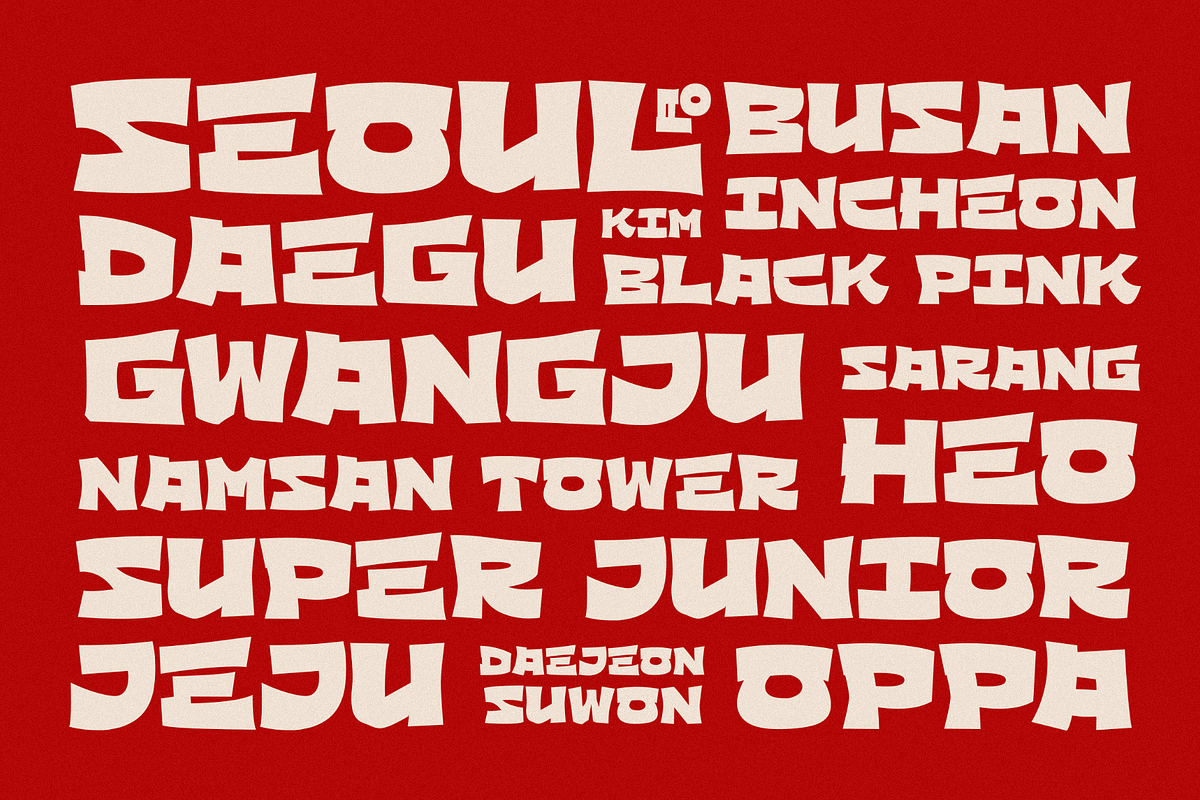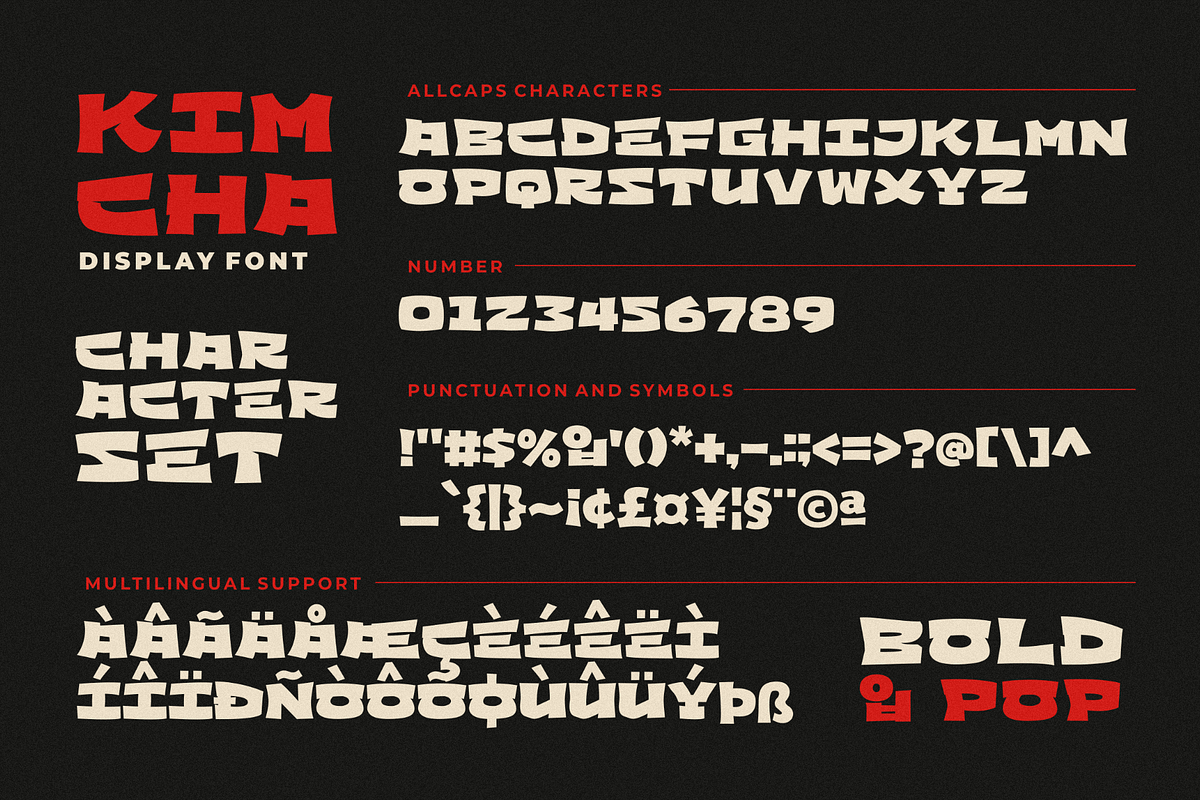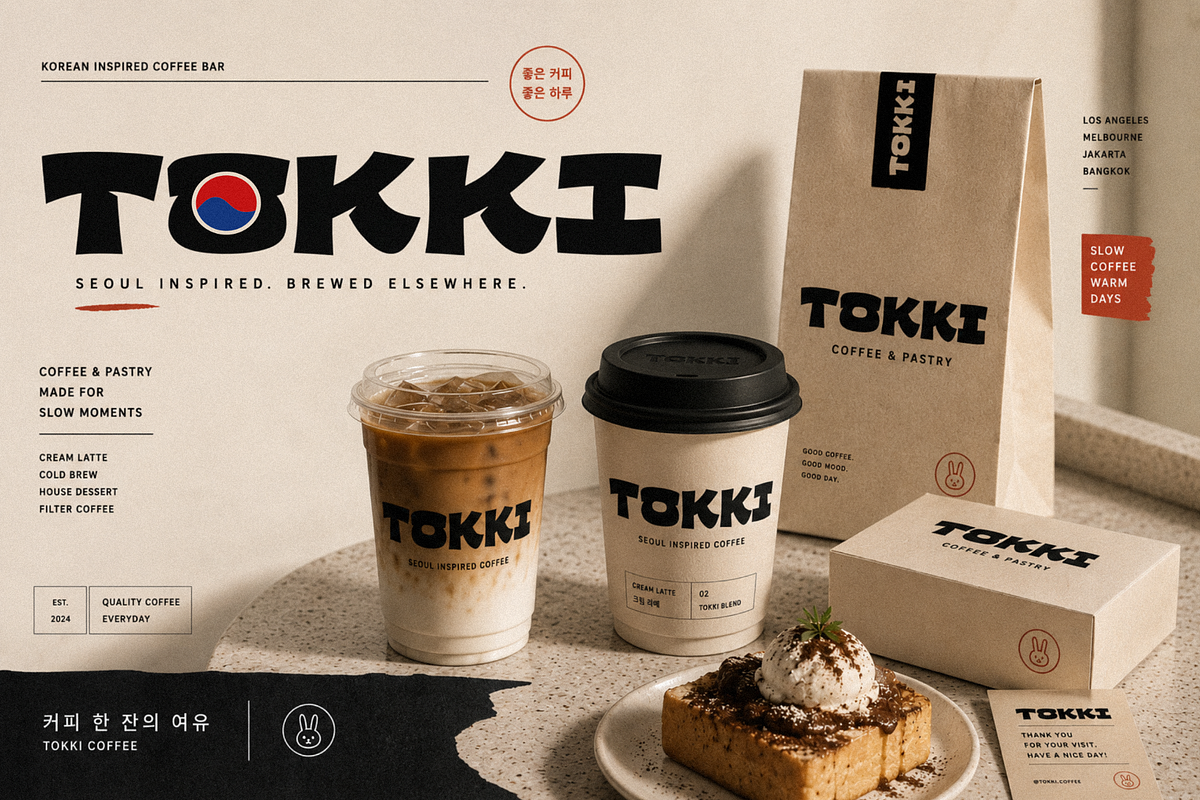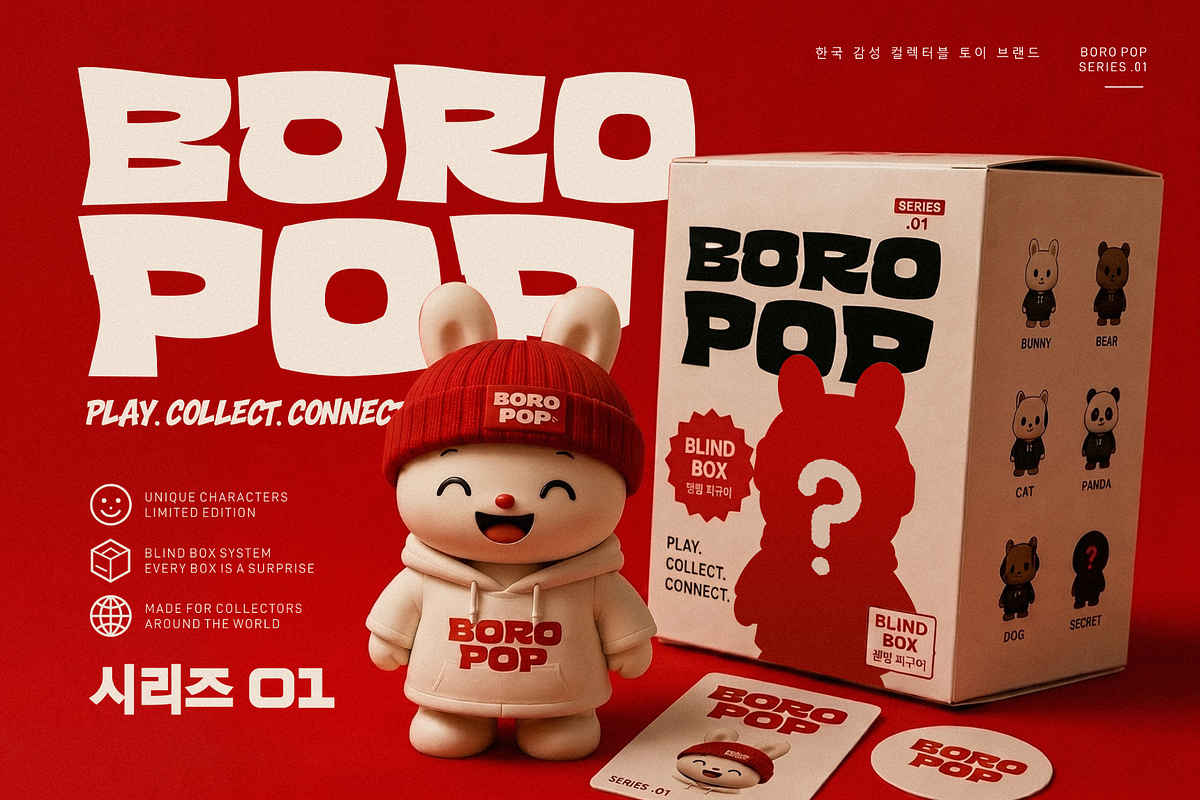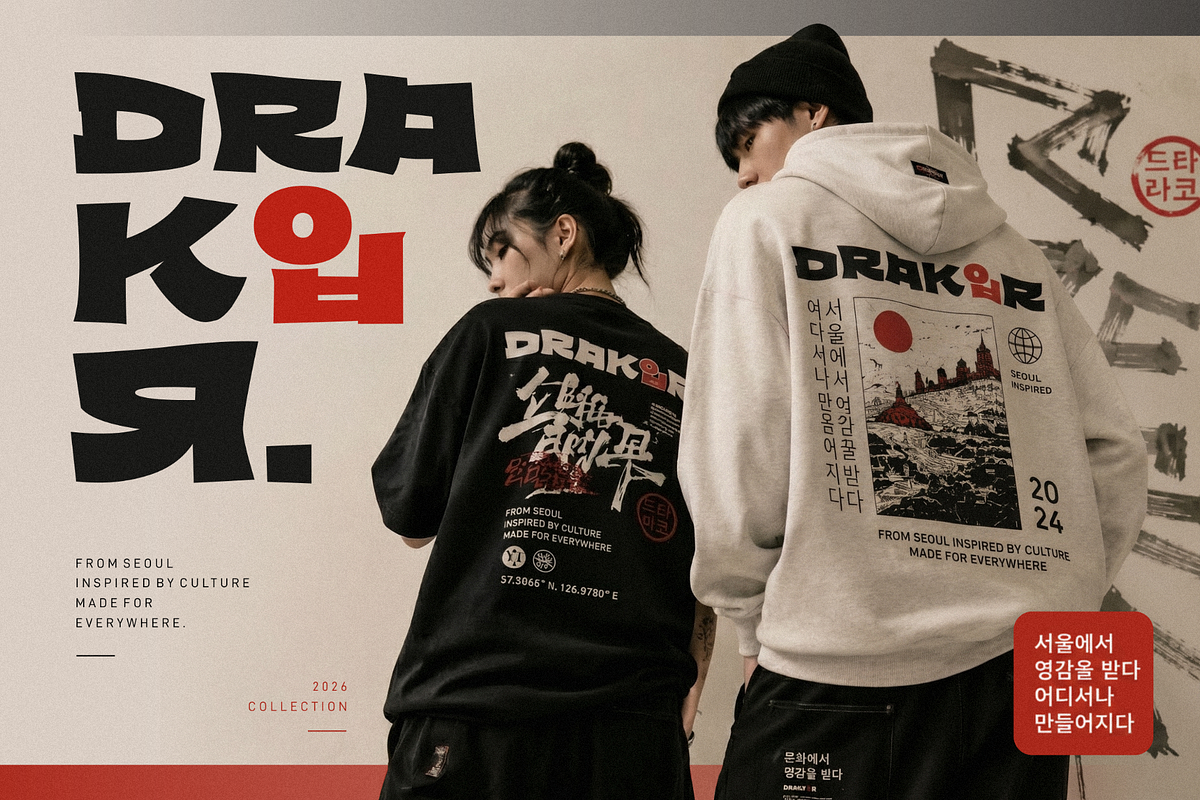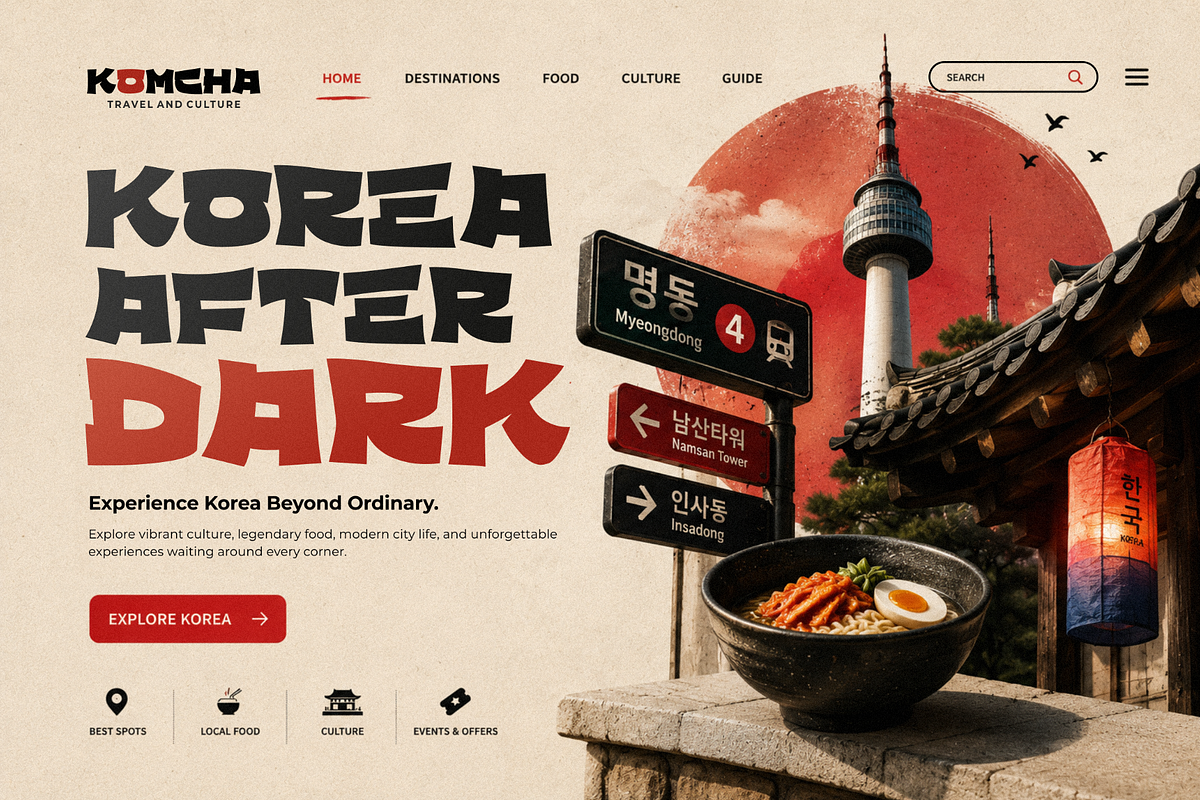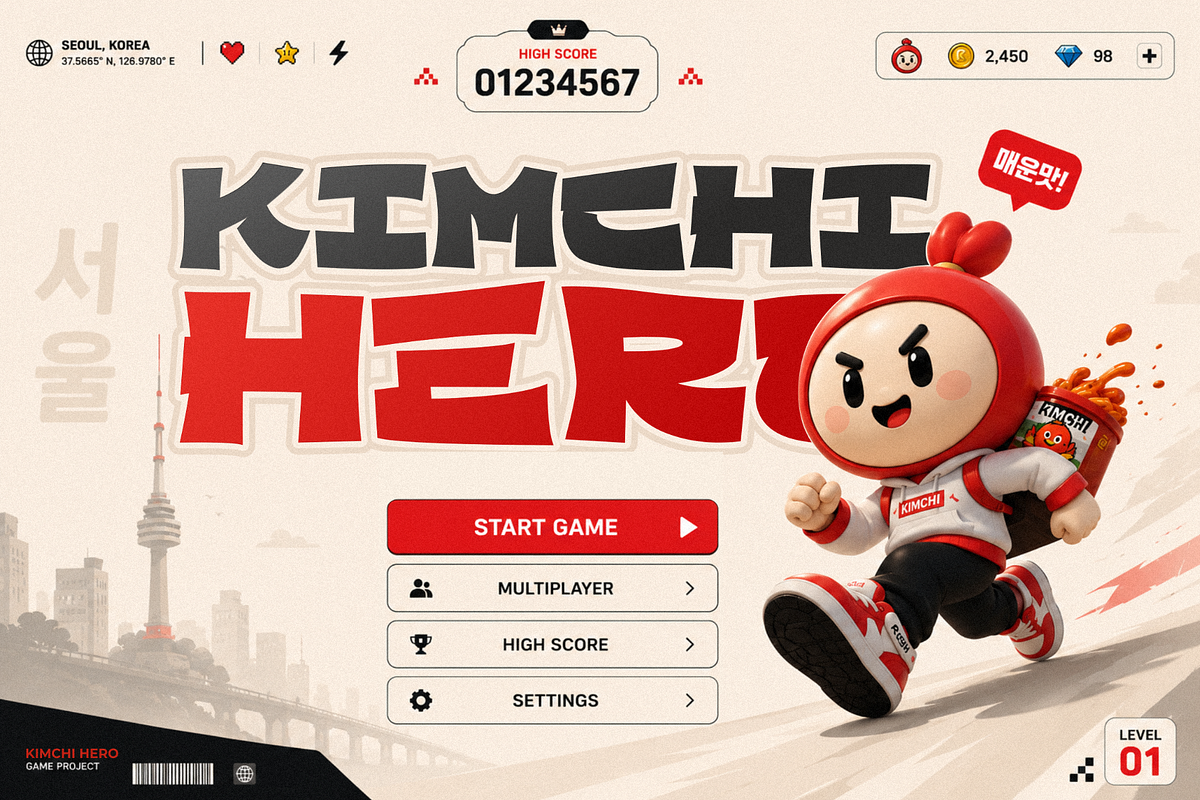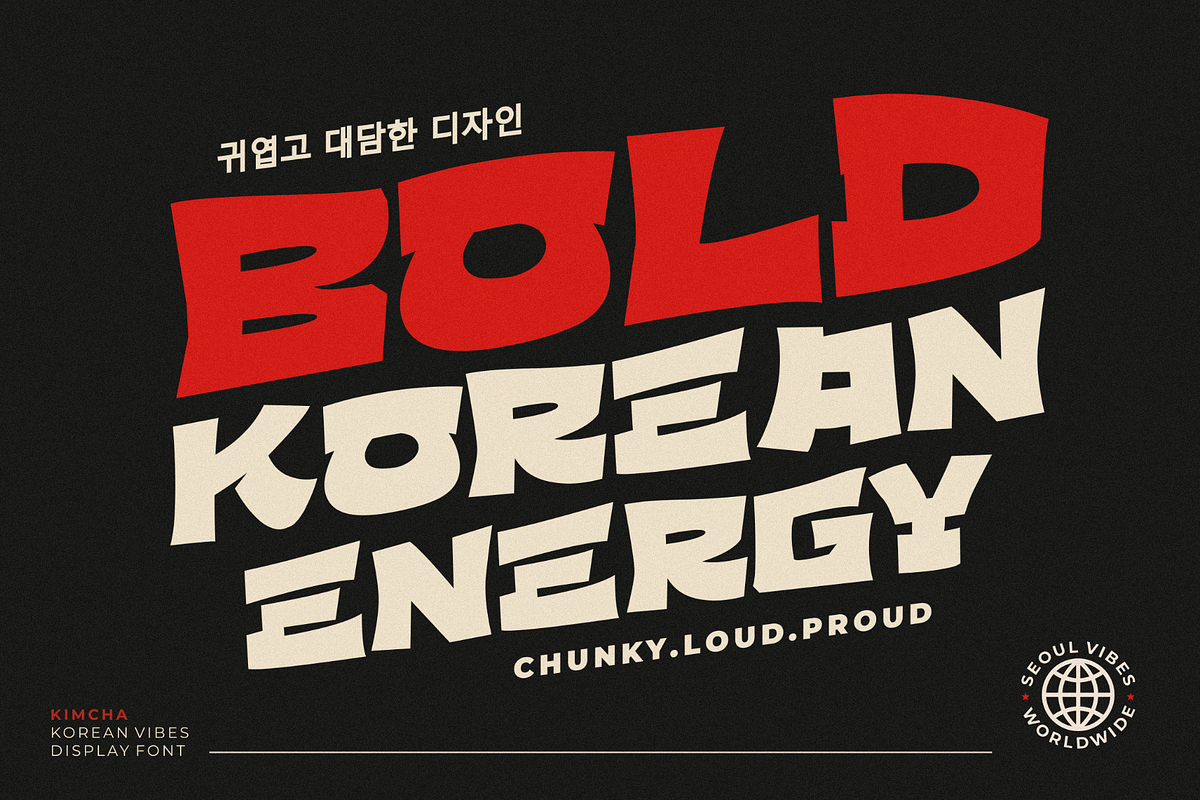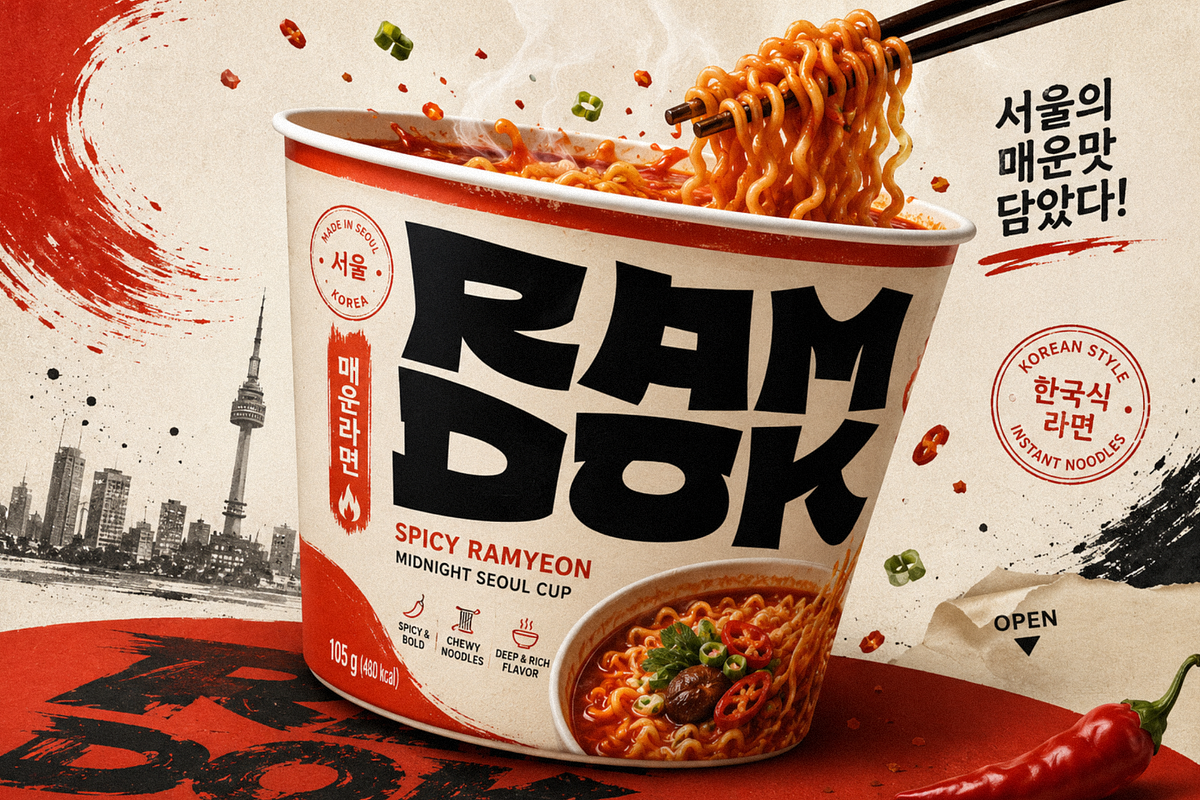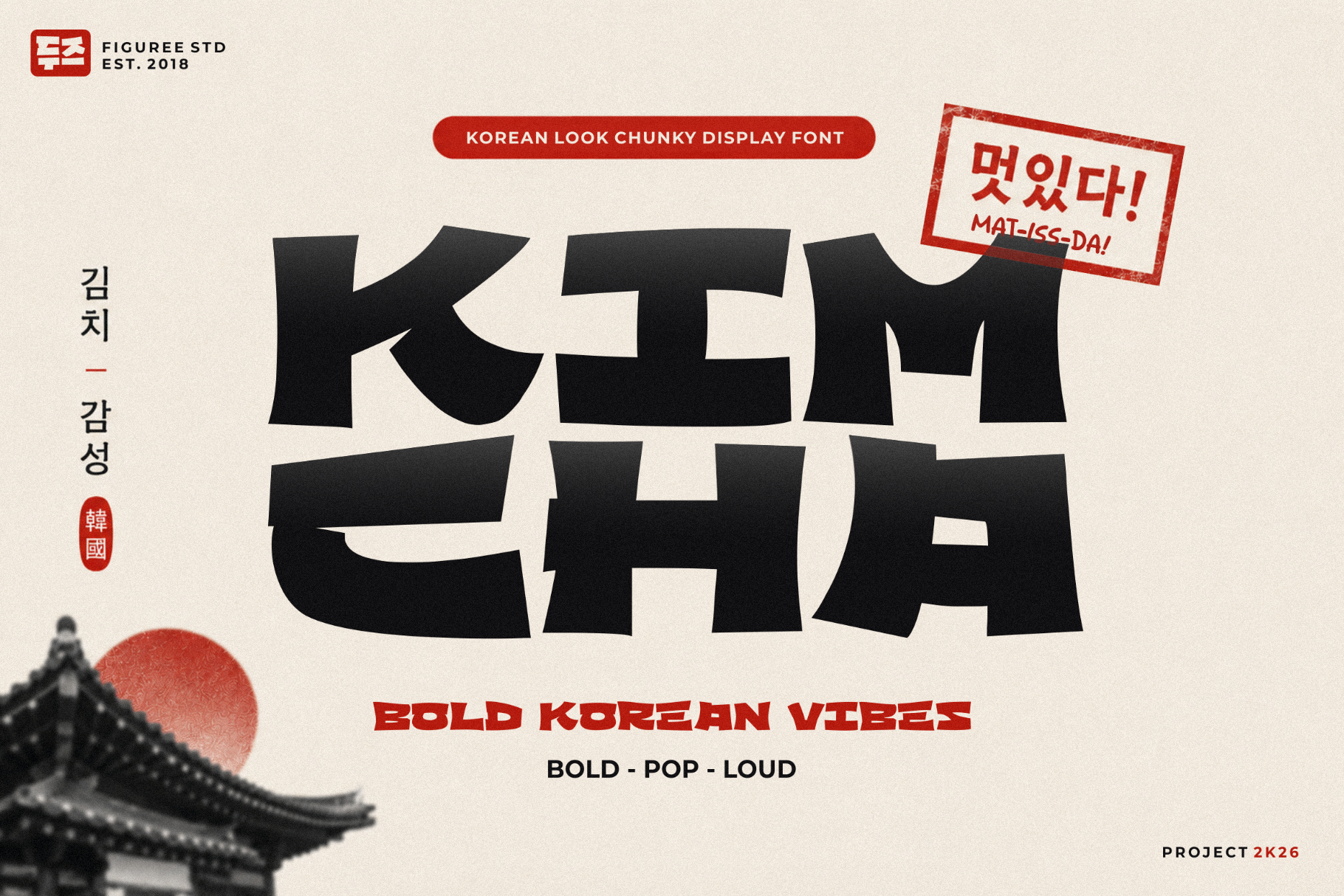
Kimcha - Korean Look Chunky Font
Introducing Kimcha - Korean Look Chunky Font, a bold display typeface inspired by the energetic visual style often seen in Korean-inspired graphics, food promotions, entertainment posters, signage, and modern digital content. With its thick letterforms and playful structure, this font is designed to create strong visual impact while keeping text readable and expressive.
The chunky style gives every word a confident and eye-catching appearance, making it suitable for posters, menus, packaging, social media graphics, video thumbnails, event promotions, and branding materials. Whether you are creating bold headlines or playful typography compositions, Kimcha delivers a distinct personality that instantly stands out.
Its uppercase character design creates a consistent and solid visual rhythm, helping designers build clean and impactful layouts. The letterforms are slightly irregular and dynamic, adding movement and character without reducing readability. This makes the font useful for both large-scale display text and attention-grabbing titles.
Uppercase Font Style for bold and consistent typography.
Support Multilingual for wider language compatibility.
Chunky Display Letterforms designed for a strong visual presence.
Korean-Inspired Look suitable for themed graphics and modern layouts.
Clear Readability for headlines, posters, and promotional content.
Why Designers Love It
Designers use Kimcha because it creates a strong visual hierarchy while maintaining a playful and approachable tone. The thick shapes make headlines more noticeable, especially in posters, menus, thumbnails, and promotional graphics where visibility matters.
Its Korean-inspired appearance also helps creators produce themed content quickly without relying on overly decorative typography. The balance between chunky proportions and clean readability makes it practical for a wide variety of creative projects.
The uppercase structure helps maintain consistency across layouts, while multilingual support allows the font to work in international design needs. Because of its versatile display style, Kimcha can adapt to both energetic and minimal compositions depending on how it is used.
Restaurant menus
Food posters
Video thumbnails
Packaging design
Promotional banners
Event posters
Gaming titles
Streaming graphics
Branding headlines
If you are looking for a chunky Korean look font that delivers bold visual impact and clear readability, Kimcha is ready to support your next creative project. Its uppercase display style, multilingual support, and strong character shapes make it useful for posters, menus, packaging, digital promotions, and attention-grabbing typography layouts. Add a dynamic and expressive touch to your design collection with Kimcha.